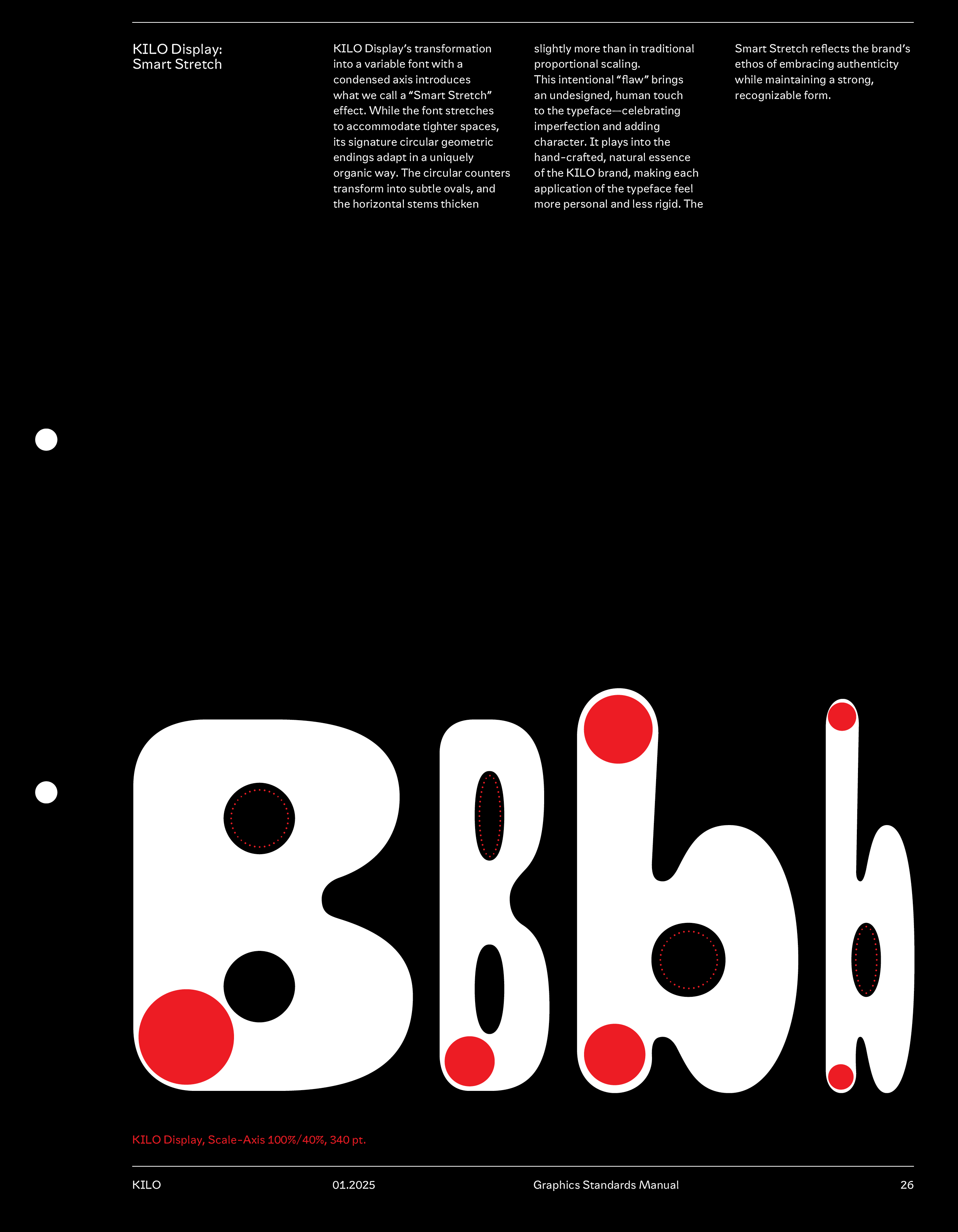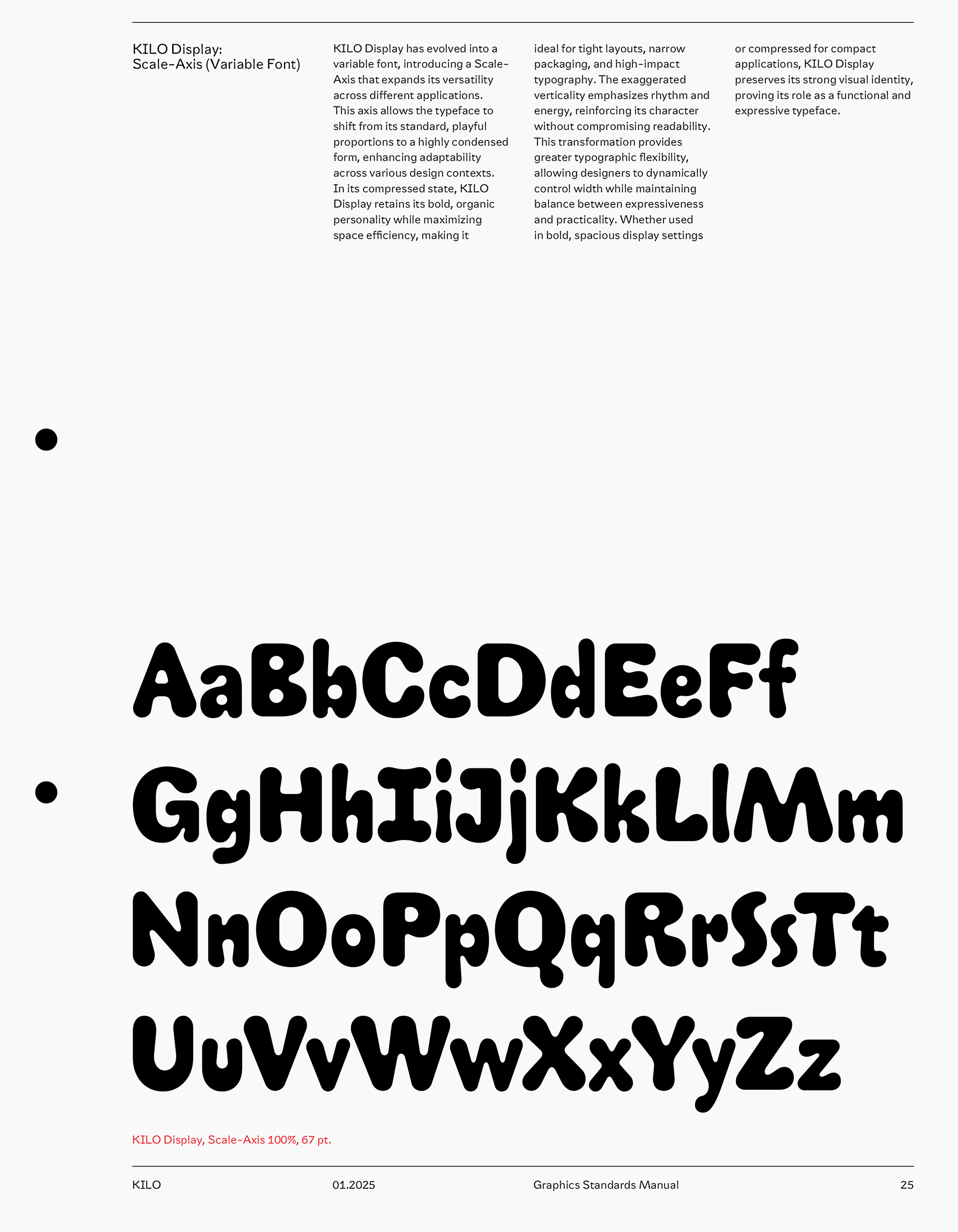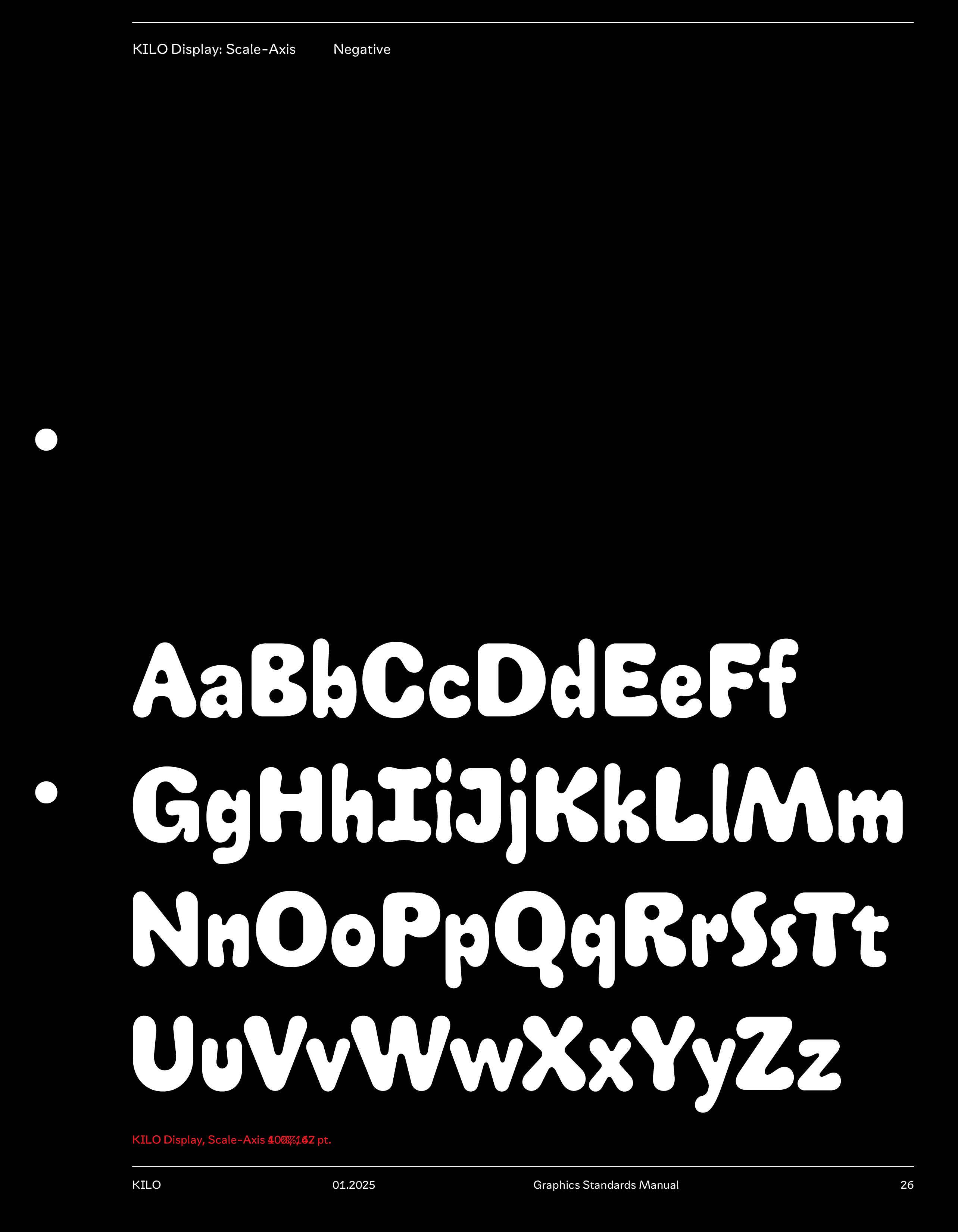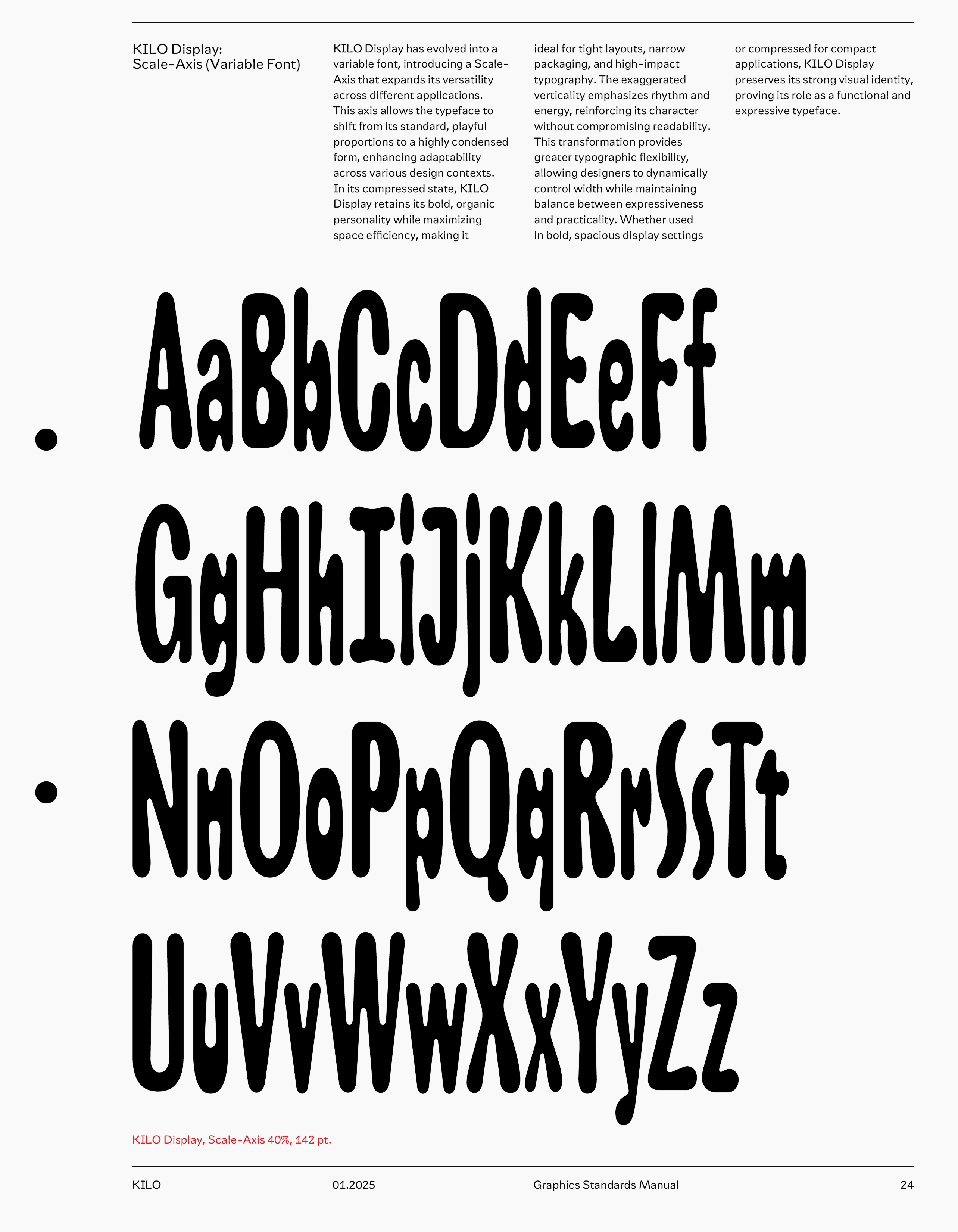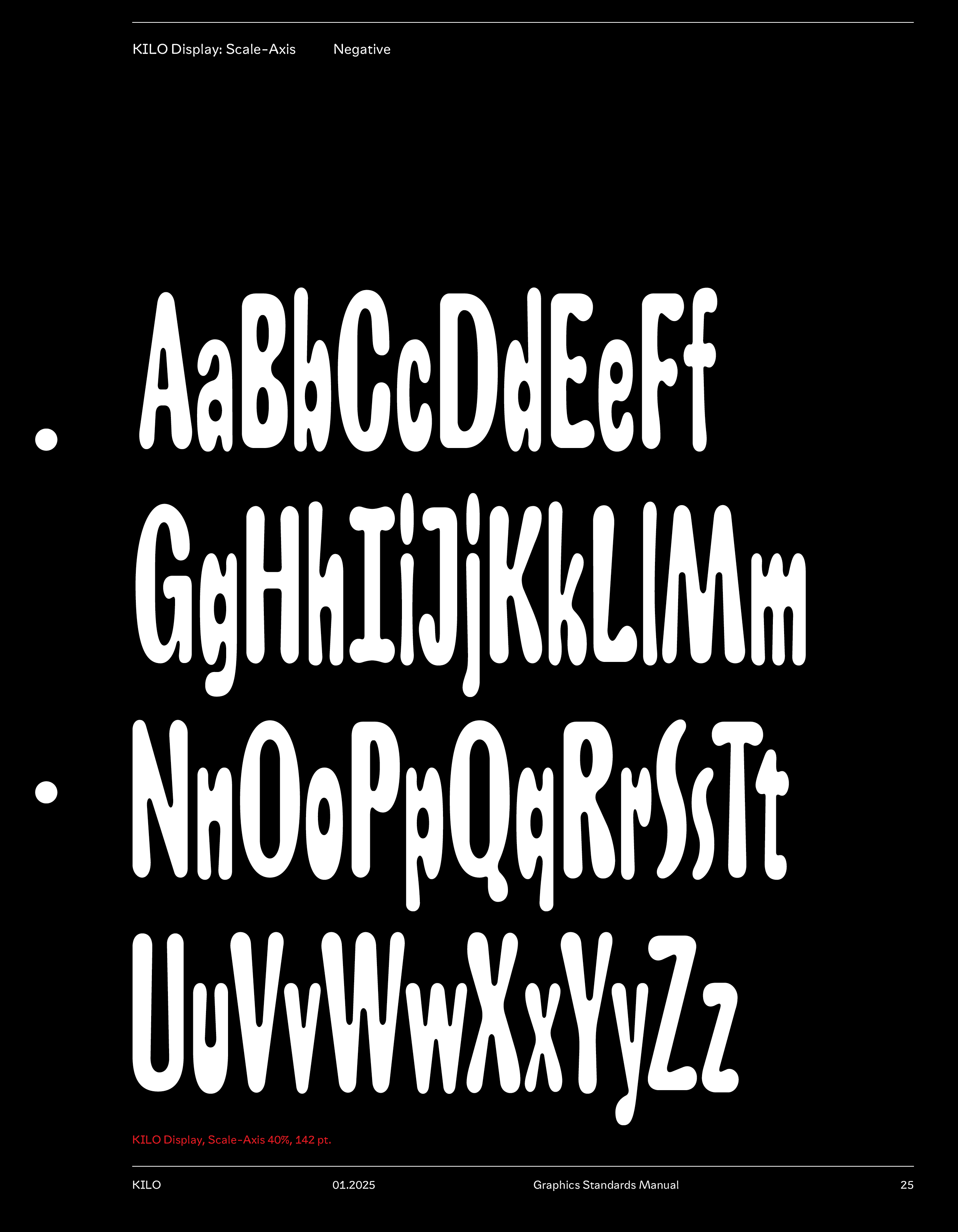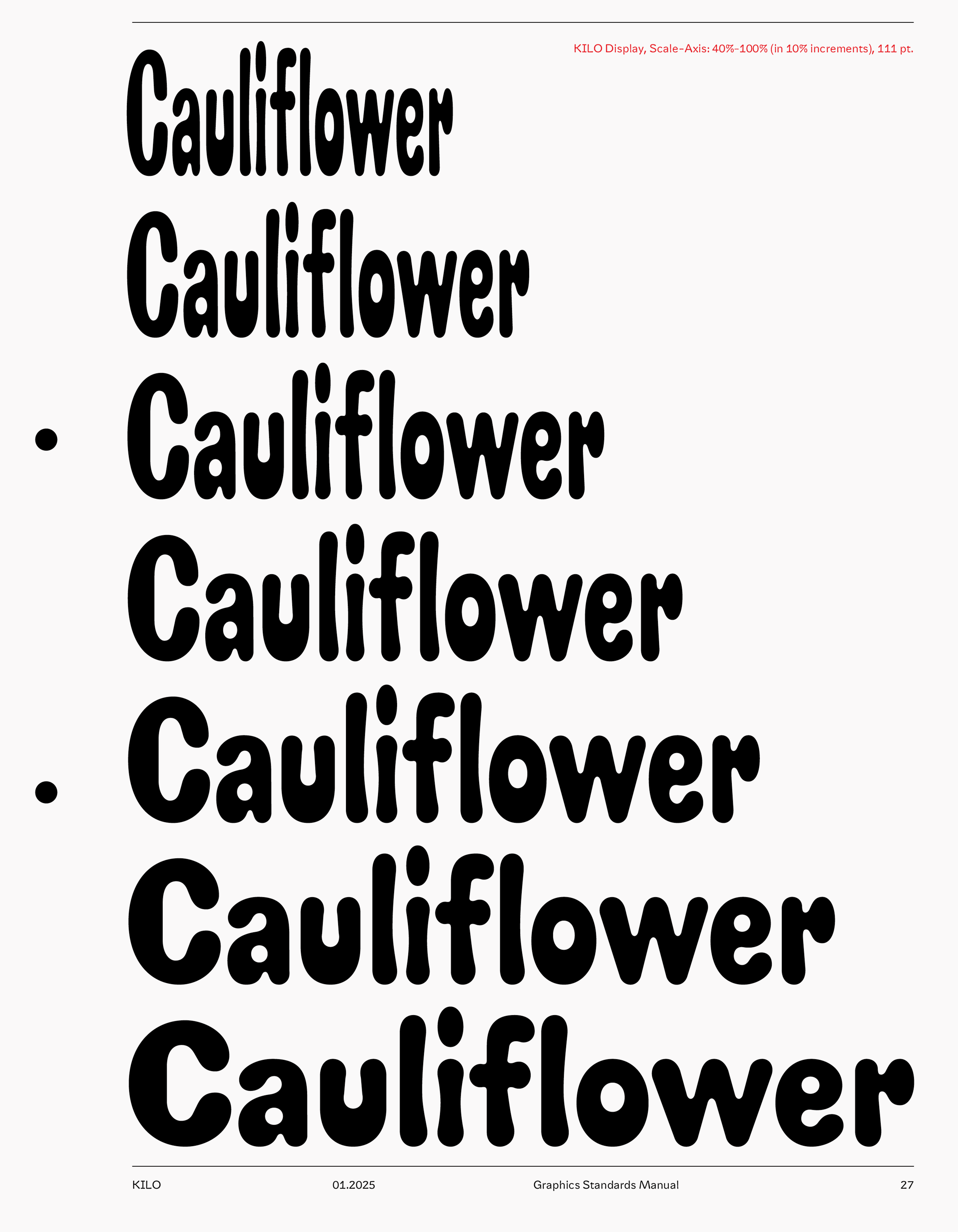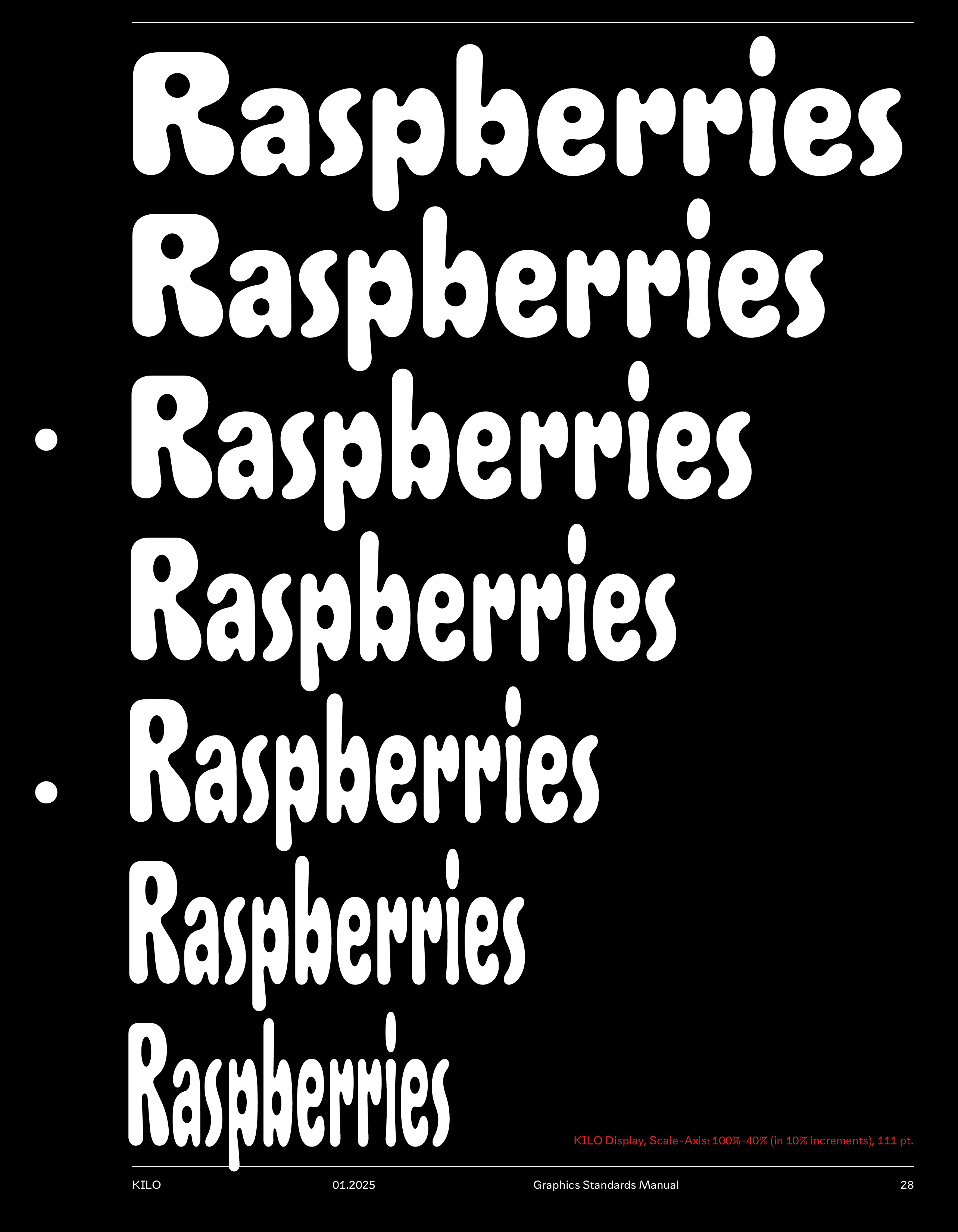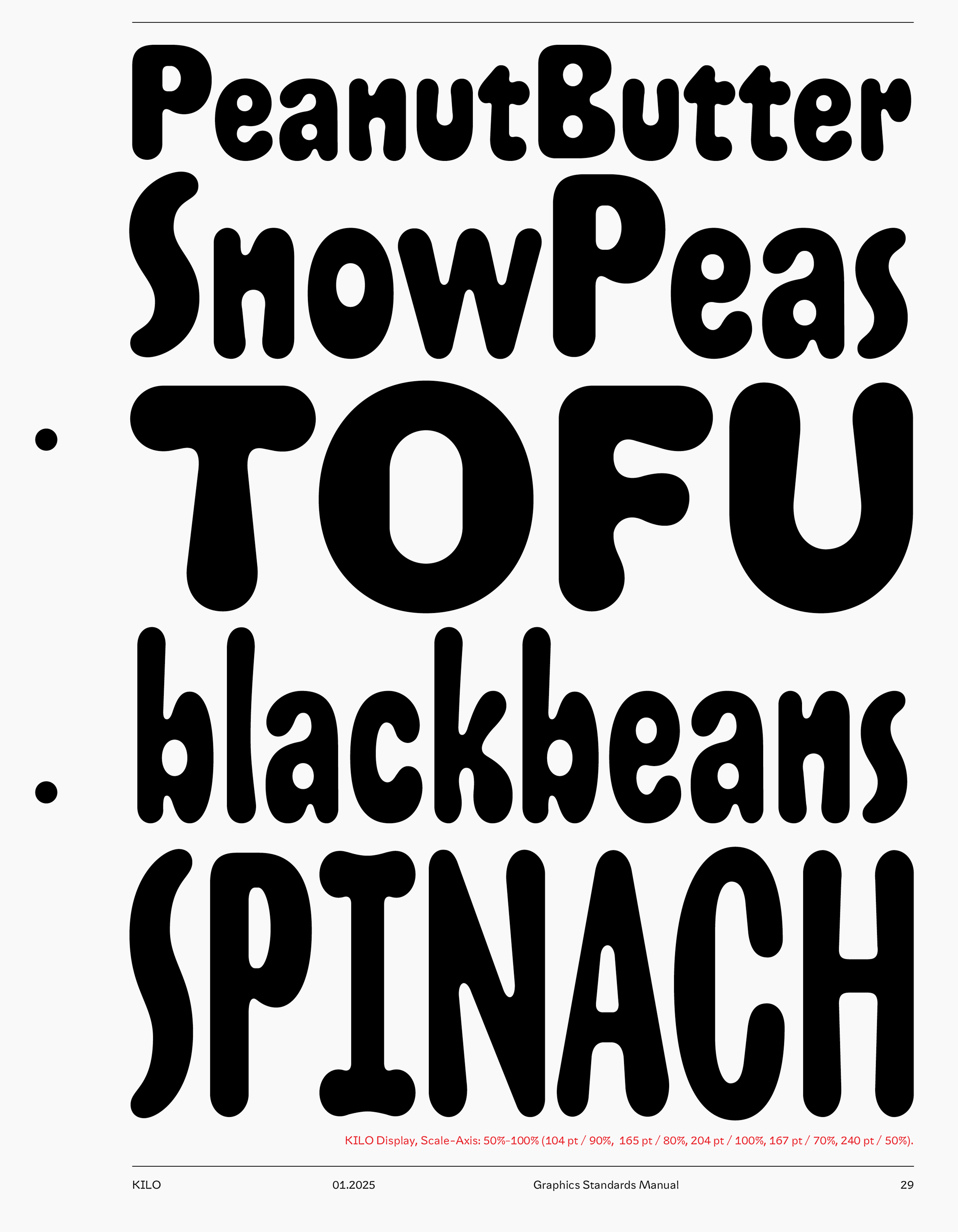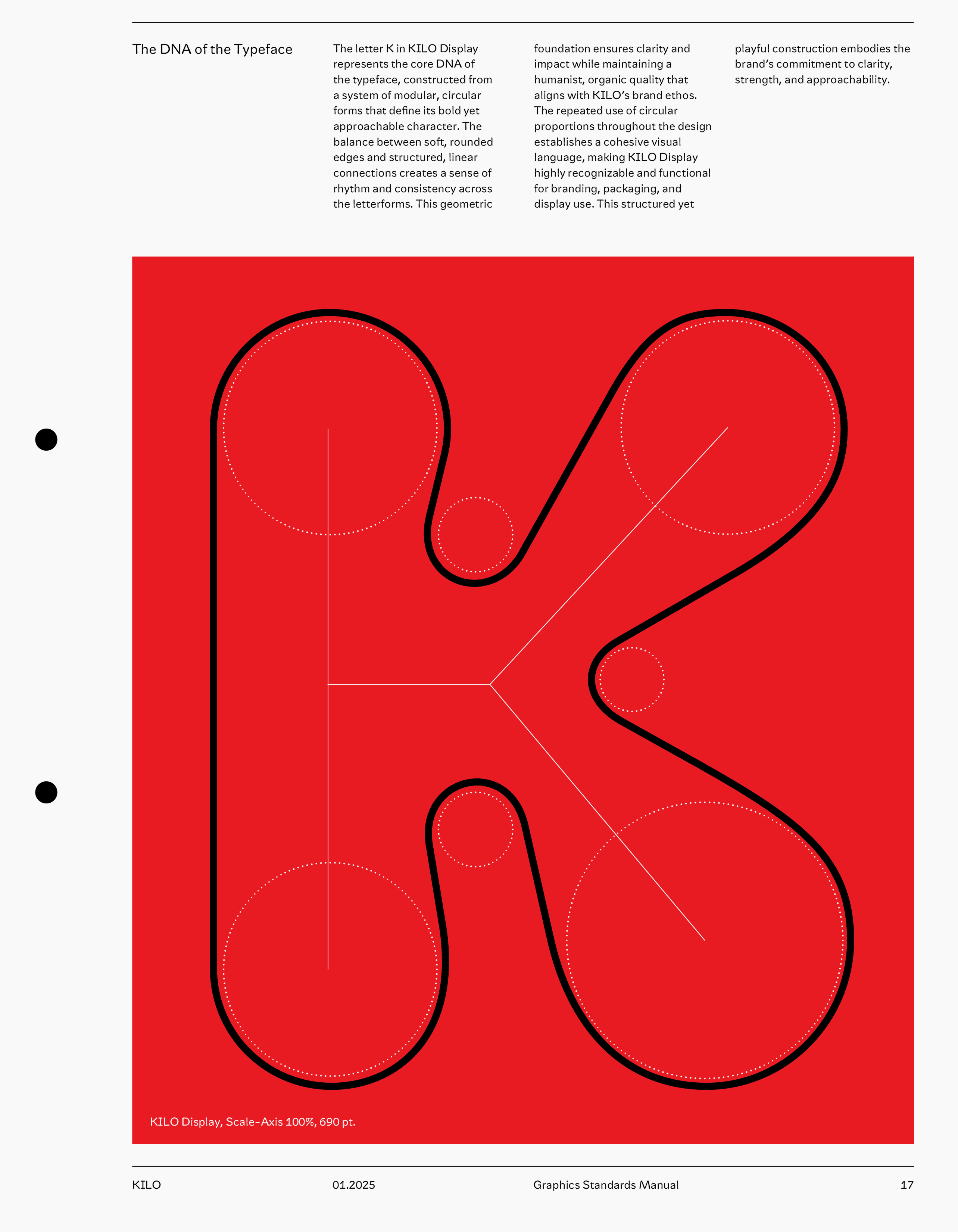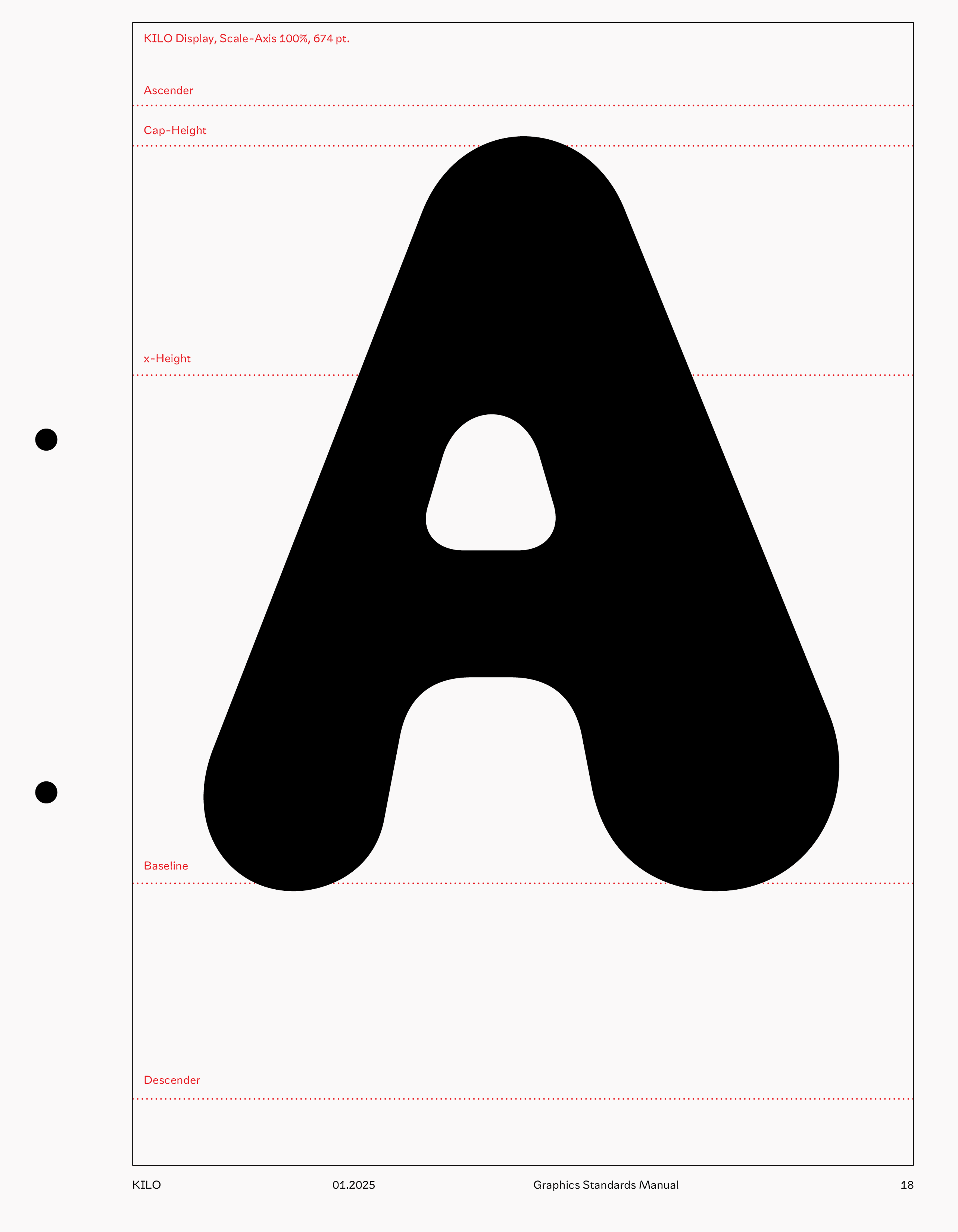
Kilo Text is a contemporary typeface designed for extended reading and editorial use. With its clean, readable character and thoughtful spacing, Kilo Text provides excellent legibility across various text sizes and contexts. The typeface balances modern aesthetics with functional design, making it ideal for body text, magazines, books, and digital publications. Its carefully crafted letterforms ensure comfortable reading experiences while maintaining visual interest and typographic sophistication.
Typeface: Kilo Display
Designed by: Nir Zabari Yenni
Mentored by: Radim Pesko (ECAL)
Year: 2025
Languages: Latin
Style: Text
Use: Editorial, Body Text, Digital
Kilo Text in Use
Kilo Display typeface in use - application 1
Kilo Display typeface in use - application 2
Kilo Display typeface in use - application 3